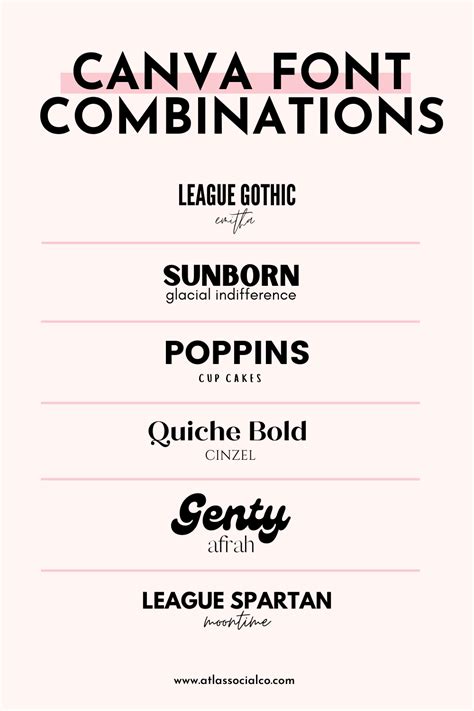
Canva Fonts Pairing: The Ultimate Guide to Typography
Readers, have you ever struggled to find the perfect font pairing for your Canva designs? Picking the right fonts can elevate your visuals and make your designs pop. But with so many amazing fonts to choose from, choosing the right combination can feel overwhelming. But don't worry, finding Canva font pairings doesn't have to be a chore. With a little guidance and a sprinkle of creativity, you can create stunning designs that will leave a lasting impression.
I'm here to act as your guide through the fascinating world of Canva font pairings. I've analyzed countless font combinations, delved deep into typography theory, and tested different pairings in real-world designs. So, buckle up and get ready to unlock the secrets of creating captivating typography that will take your Canva designs to the next level.
Understanding Font Families
Before diving into specific font pairings, let's build a strong foundation by understanding the different font families. Font families are categorized by their unique design characteristics, such as their serifs – small decorative lines at the ends of strokes – or their weight and style.
Serif Fonts
Serif fonts like Times New Roman or Garamond have those subtle decorative lines at the ends of strokes, giving them a more traditional and formal feel. They work well for longer bodies of text, such as articles, reports, and books, as they improve readability.
Sans-Serif Fonts
Sans-serif fonts like Arial or Helvetica lack those decorative lines, giving them a clean and modern look. They are often used for headlines, titles, and headings as they provide a bolder and more impactful visual presence.
Script Fonts
Script fonts, inspired by handwriting, add elegance and a whimsical touch to designs. Fonts like Brush Script or Pacifico are perfect for adding a personal touch to invitations, wedding stationery, and social media graphics.
Display Fonts
Display fonts like Impact or Chalkboard are designed to make a bold statement. Often used for posters, headlines, or branding elements, they grab attention and create a strong visual impact.
The Art of Font Pairing
Now that we've got a grasp of font families, let's delve into the exciting world of font pairing. Matching different font families is a crucial element in creating visually appealing and legible designs. When pairing fonts, consider these key factors:
Contrast and Harmony
The key to successful font pairing is to find a balance between contrast and harmony. You want your fonts to be visually distinct enough to differentiate between headlines and body text but harmonious enough to create a cohesive visual experience.
Font Weight and Size
The weight and size of your fonts play a significant role in font pairing. For example, a bold headline font will stand out more when paired with a lighter body text font. Likewise, size variations can create a dynamic visual hierarchy.
Purpose and Audience
Consider the purpose of your design and your target audience. A playful script font might be perfect for a children's book, while a sleek sans-serif font would better suit a corporate presentation.
Best Canva Font Pairing Combinations
Here are some popular and visually pleasing Canva font pairing combinations that you can experiment with:
Classic Combinations
- Serif (body) + Sans-serif (headline): This classic combination provides a clean and balanced look. Try pairing Times New Roman with Arial or Garamond with Helvetica.
- Sans-serif (body) + Serif (headline): This pairing adds a touch of sophistication and elegance. Try pairing Arial with Times New Roman or Helvetica with Garamond.
Modern Combinations
- Sans-serif (body) + Script (headline): This pairing blends modern and elegant elements. Try pairing Open Sans with Pacifico or Montserrat with Brush Script.
- Sans-serif (body) + Display (headline): For a bold and striking look, pair a sans-serif font with a display font. Try pairing Lato with Impact or Roboto with Chalkboard.
Creative Combinations
- Script (body) + Serif (headline): This pairing adds a touch of whimsy and sophistication. Try pairing Pacifico with Garamond or Brush Script with Times New Roman.
- Display (body) + Sans-serif (headline): This eye-catching pairing creates a powerful visual impact. Try pairing Impact with Arial or Chalkboard with Helvetica.
Top Canva Font Pairing Tips for Beginners
If you're new to the world of font pairing, here are some simple tips to get you started:
Start with a Basic Pair
Begin with a classic combination like a serif font for the body text and a sans-serif font for headlines. This provides a solid foundation for learning the basics of font pairing.
Use Font Pairing Websites
Several websites offer font pairing suggestions. These tools can help you explore different combinations and find inspiration for your Canva designs.
Experiment and Have Fun
Don't be afraid to experiment with different font pairings. Canva makes it easy to switch fonts and see how they look together. The best way to find your favorite combinations is to play around and see what works best for your designs.
Canva Font Pairing: Common Mistakes to Avoid
While font pairing can be exciting, there are some common mistakes to avoid to ensure your designs look professional and polished.
Using Too Many Fonts
Avoid using more than two to three different fonts in a single design. Too many fonts can create visual clutter and make it difficult to read. Instead, stick to a limited number of fonts and use variations in weight and size to create visual interest.
Conflicting Font Styles
Be mindful of the overall style and mood of your design. Avoid pairing fonts that clash in style, such as a playful script font with a formal serif font. Choose fonts that complement each other and reinforce the overall aesthetic.
Overusing Bold and Italic
While bold and italic styles can add emphasis, use them sparingly. Overusing these styles can create an unbalanced and chaotic look. Instead, leverage variations in font weight and size to create visual hierarchy.
Canva Font Pairing for Different Design Types
Here's a glimpse into how to choose the best font pairings for specific design types:
Website Design
For websites, prioritize readability and clarity. A classic serif font for body text and a sans-serif font for headlines is a safe and effective choice. Google Fonts offers a wide array of free, high-quality fonts perfect for website design.
Social Media Graphics
Social media graphics need to grab attention quickly. Consider using bold sans-serif fonts for headlines and a playful script font for call-to-actions. Use font pairing tools to find combinations that align with your brand identity.
Print Materials
When designing print materials like brochures, posters, or business cards, ensure the font pairing works well at different sizes. Serif fonts are generally a good choice for print, but sans-serif fonts can also work well for headlines and titles.
Canva Font Pairing: Frequently Asked Questions
How do I choose the right Canva font for a logo?
For logos, consider choosing a font that reflects your brand identity. Script fonts can work well for businesses with a creative or elegant feel, while sans-serif fonts often convey modernity and professionalism.
What are the best font pairing resources for Canva?
There are many great resources online, including websites like Font Pair, Typewolf, and Canva's own font library, which offer suggestions and inspiration for font pairings.
How can I improve my Canva font pairing skills?
The best way to improve your font pairing skills is to practice! Experiment with different combinations, learn from successful designs, and pay attention to the principles of contrast, harmony, and visual hierarchy.
Practice, experiment, and don't be afraid to step outside your comfort zone. There are countless possibilities when it comes to font pairing, and the right combination can make all the difference in the success of your Canva designs.